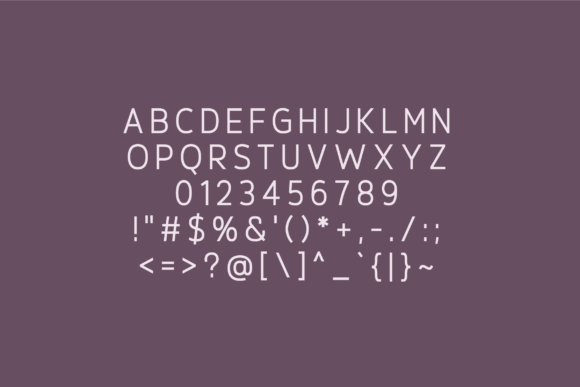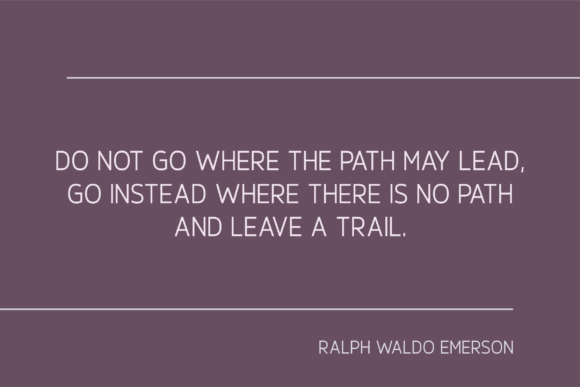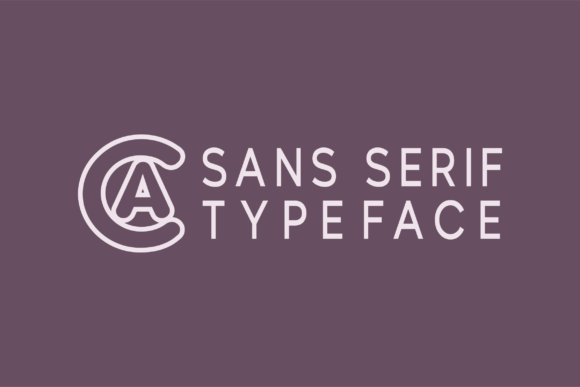
Enter the Galactica Font, a sleek and sophisticated sans serif typeface that’s about to revolutionize the way you create. With its seamless blend of upper characters and numbers, this versatile font is the ultimate tool for designers looking to push the boundaries of their craft. Whether you’re crafting logos, wedding invitations, or inspiring quotes, the Galactica Font is the perfect fit for any design venture.
What sets Galactica apart is its unparalleled versatility, making it a valuable addition to any designer’s toolkit. With its extensive array of punctuation and symbols, you’ll be able to bring your most ambitious projects to life with ease.
Galactica Font Key Features
- Font Family: Galactica is a sans-serif font family designed for use in digital media.
- Unique Characteristics: Features a geometric and futuristic design aesthetic, with distinctive angular lines and a high-tech feel, making it suitable for use in science fiction, technology, and futuristic-themed designs.
- Character Set: Includes a comprehensive character set, including Latin, Cyrillic, and Greek alphabets, as well as various punctuation marks and symbols.
Galactica Font Review
As a designer, I was excited to dive into the Galactica Font, and I have to say, it’s a wild ride. ✨ The font’s futuristic feel is undeniable, and the sleek lines and geometric shapes make it perfect for sci-fi themed projects or anything that needs a touch of cosmic flair. The font is highly customizable, with multiple weights and styles to choose from, making it a great option for designers who like to mix and match.
- ✨ The font’s bold and edgy feel makes it perfect for attention-grabbing headlines and titles.
- ✨ The multiple styles and weights give designers a lot of flexibility and creative freedom.
- ✨ The font is highly legible, even at small sizes, making it a great option for body text.
However, there are some limitations to consider. ⚠️ The font’s futuristic feel can come across as cheesy or over-the-top if not used carefully. Additionally, the font may not be suitable for projects that require a more traditional or conservative look.
Overall, I think the Galactica Font is a great option for designers who are looking for a bold and eye-catching font that’s perfect for sci-fi themed projects or anything that needs a touch of cosmic flair. Just be sure to use it carefully and in context to avoid any potential pitfalls.
Galactica Font: A Practical Application Guide
Tips for Getting the Most Out of Galactica Font
Use Galactica Font for futuristic or sci-fi themed designs.
Combine Galactica Font with bold, bright colors to create a striking visual effect.
Experiment with different font sizes and styles to add depth and interest to your design.
Galactica Font is ideal for:
Science fiction movie posters.
Futuristic website headers.
Comic book covers.
Alternatives to Galactica Font
1. Fjalla One
Fjalla One is a sans-serif font that is highly legible and versatile. It is ideal for use in headings, titles, and body text where a clean and modern look is desired.
Compared to Galactica Font, Fjalla One has a more minimalist and sleek appearance, making it a great choice for modern designs. It is also more readable at smaller font sizes.